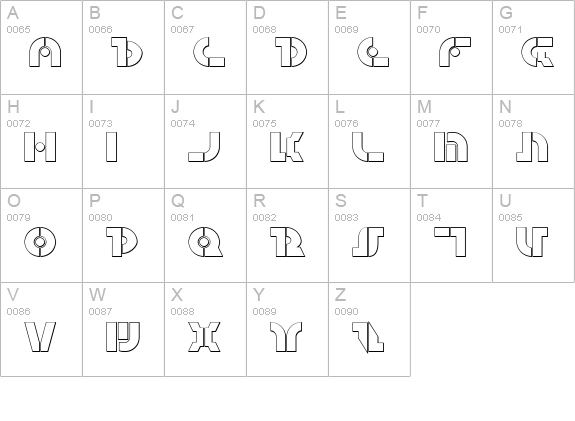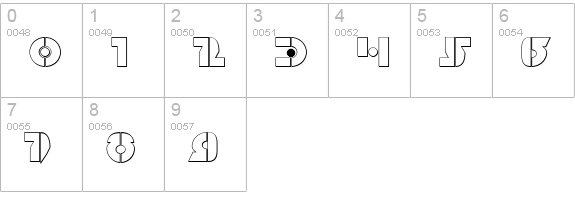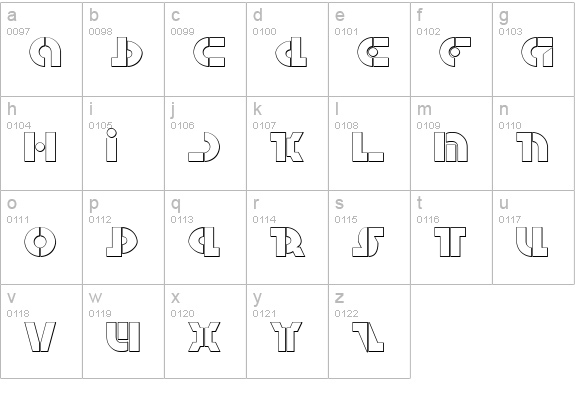
Questlok Shadow Font Details
Introducing Questlok Shadow, a mesmerizing display font that effortlessly combines elegance with an air of mystery. This font is perfect for adding a touch of intrigue to your design projects, whether it be for branding, logos, headlines, or any other creative endeavor. With its intricate details and captivating shadow effect, Questlok Shadow commands attention and creates a sense of depth and dimension. Its unique letterforms are carefully crafted to exude a sense of power and sophistication, making it a versatile choice for both modern and classic designs. One of the best features of Questlok Shadow is that it is freely available to download at FontsMarket.com. This means that you can easily access and use this stunning font in your projects without any restrictions. The freedom to incorporate Questlok Shadow into your designs allows for endless possibilities and creative exploration. Whether you're designing for print or digital media, Questlok Shadow will undoubtedly leave a lasting impression. Its bold presence and artistic flair make it stand out from the crowd, ensuring that your message is conveyed with style and impact. Don't miss out on the opportunity to elevate your designs with Questlok Shadow. Visit FontsMarket.com today to download this exceptional font for free and unlock a world of endless design possibilities.